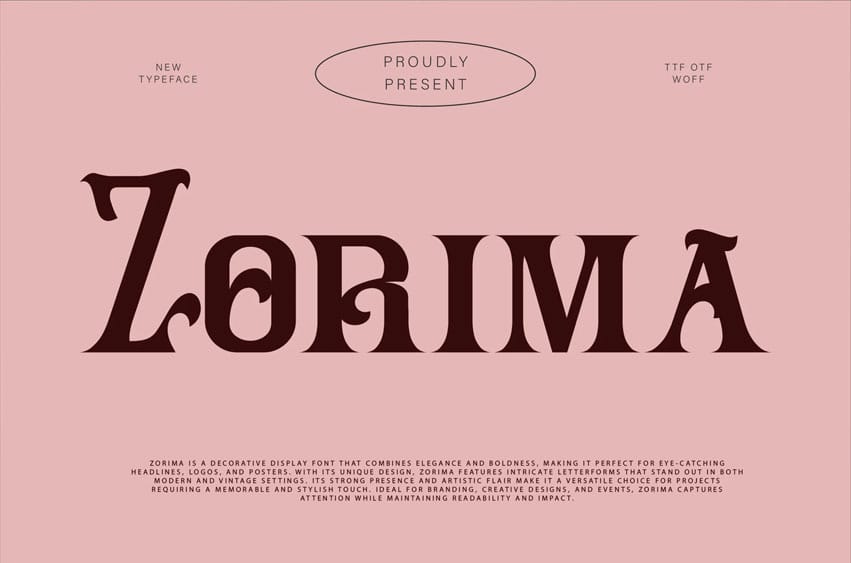
Zorima Font is a decorative display font that combines elegance and boldness, making it perfect for eye-catching headlines, logos, and posters. With its unique design, Zorima features intricate letterforms that stand out in both modern and vintage settings.
Its strong presence and artistic flair make it a versatile choice for projects requiring a memorable and stylish touch. Ideal for branding, creative designs, and events, Zorima captures attention while maintaining readability and impact.